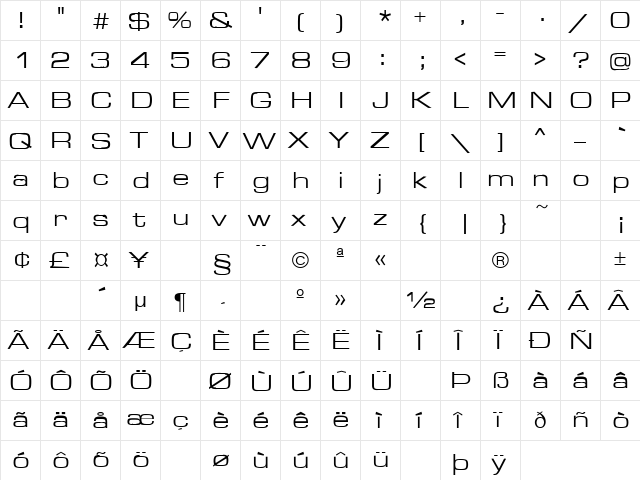
Green Mountain 11 Regular
Design Context for Green Mountain 11 Typeface
Green Mountain 11 takes a measured approach to typography — its balanced proportions and neutral character make it a reliable workhorse for both digital and print work.